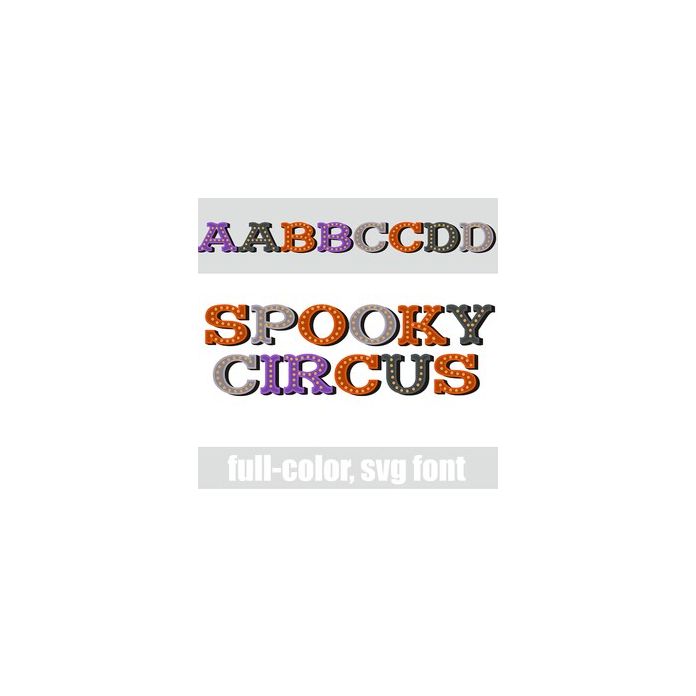
This full-color font features marquee lettering in a Halloween color palette. There is an alt case w/ additional colors you can access through your system or Silhouette's glyph map.